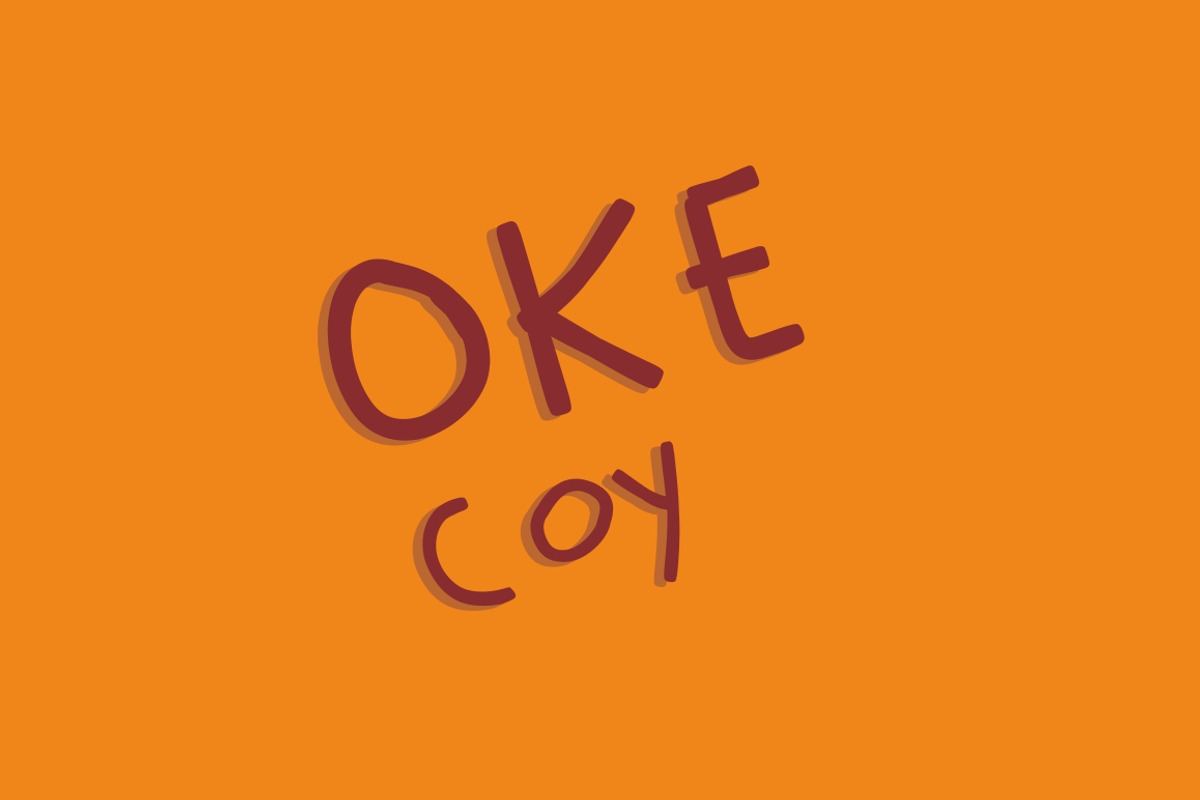
Breadoin Fonts
Breadoin Fonts by tipudaya is a font selected for branding, posters, packaging, typography.
Why Breadoin Fonts is worth a look
Breadoin Fonts by tipudaya fits naturally into Branding, posters, packaging, typography.